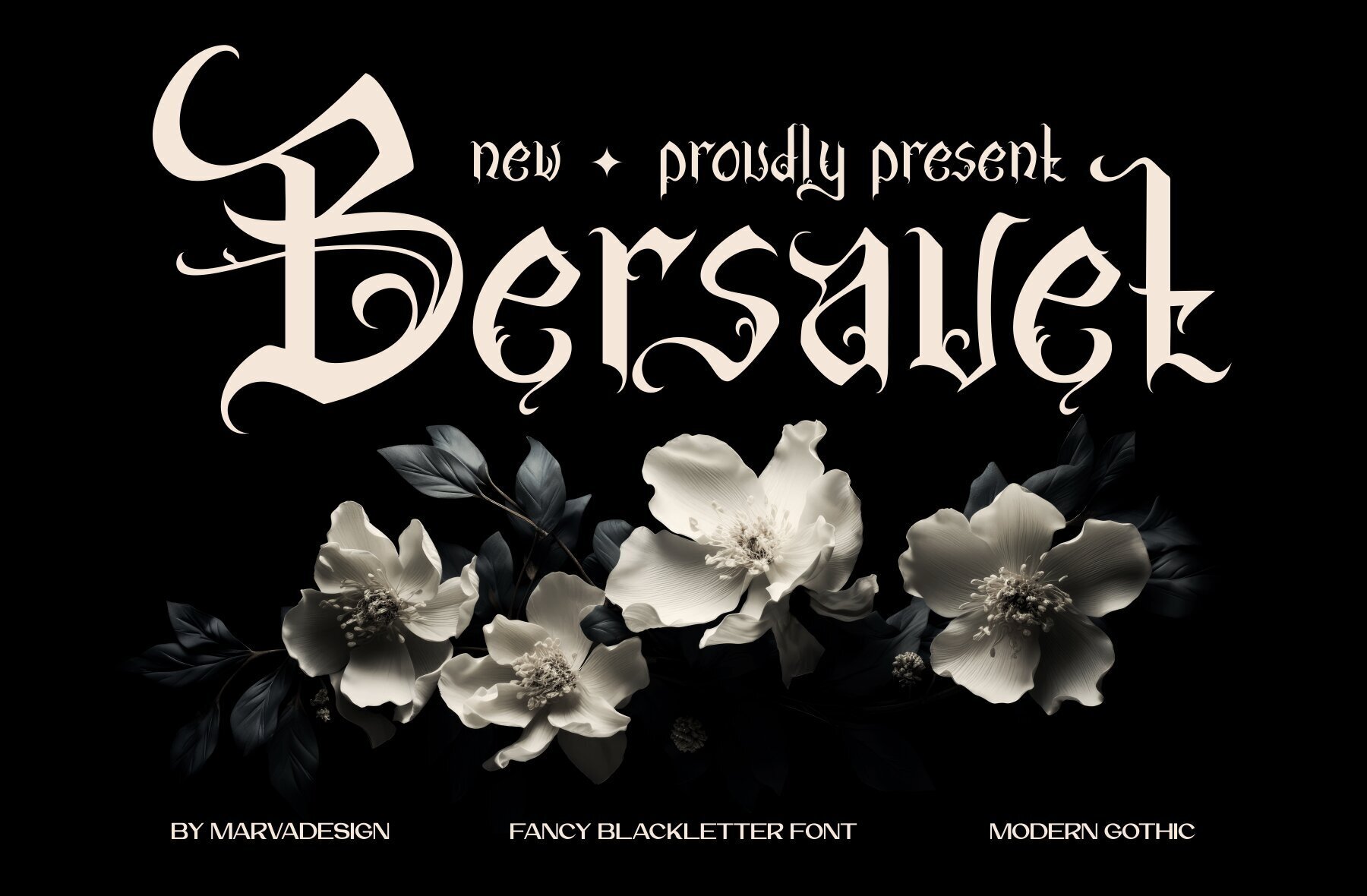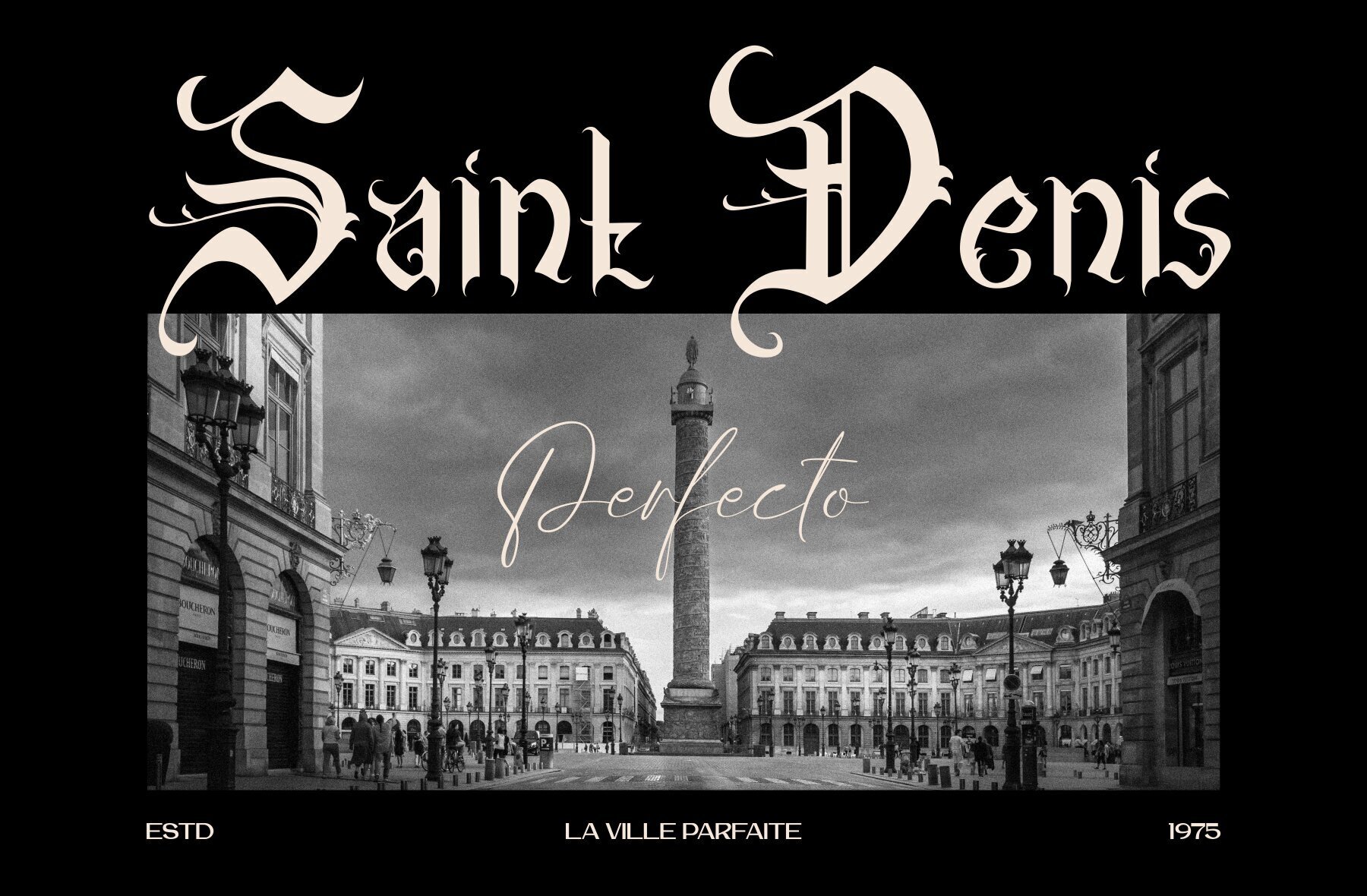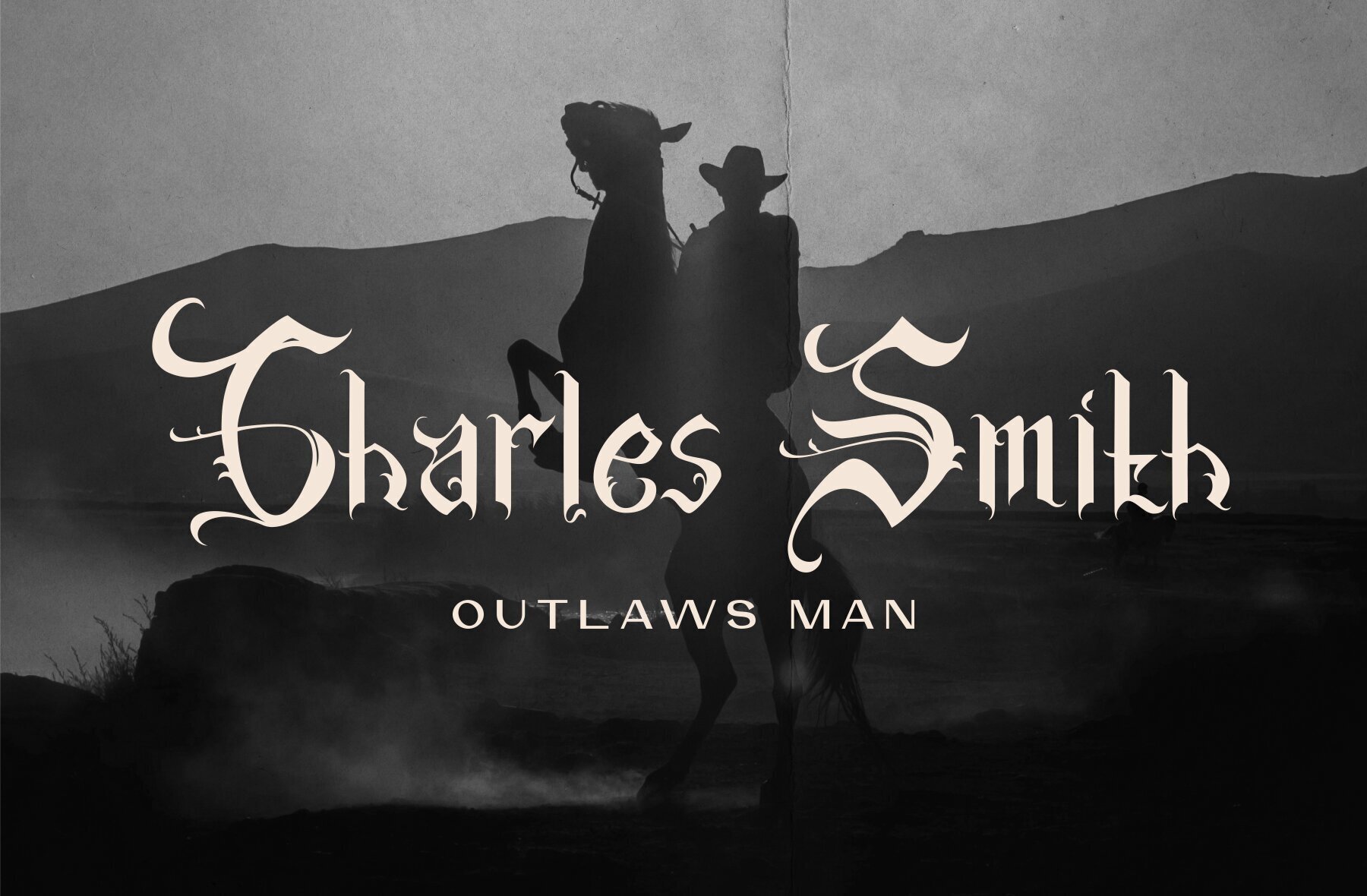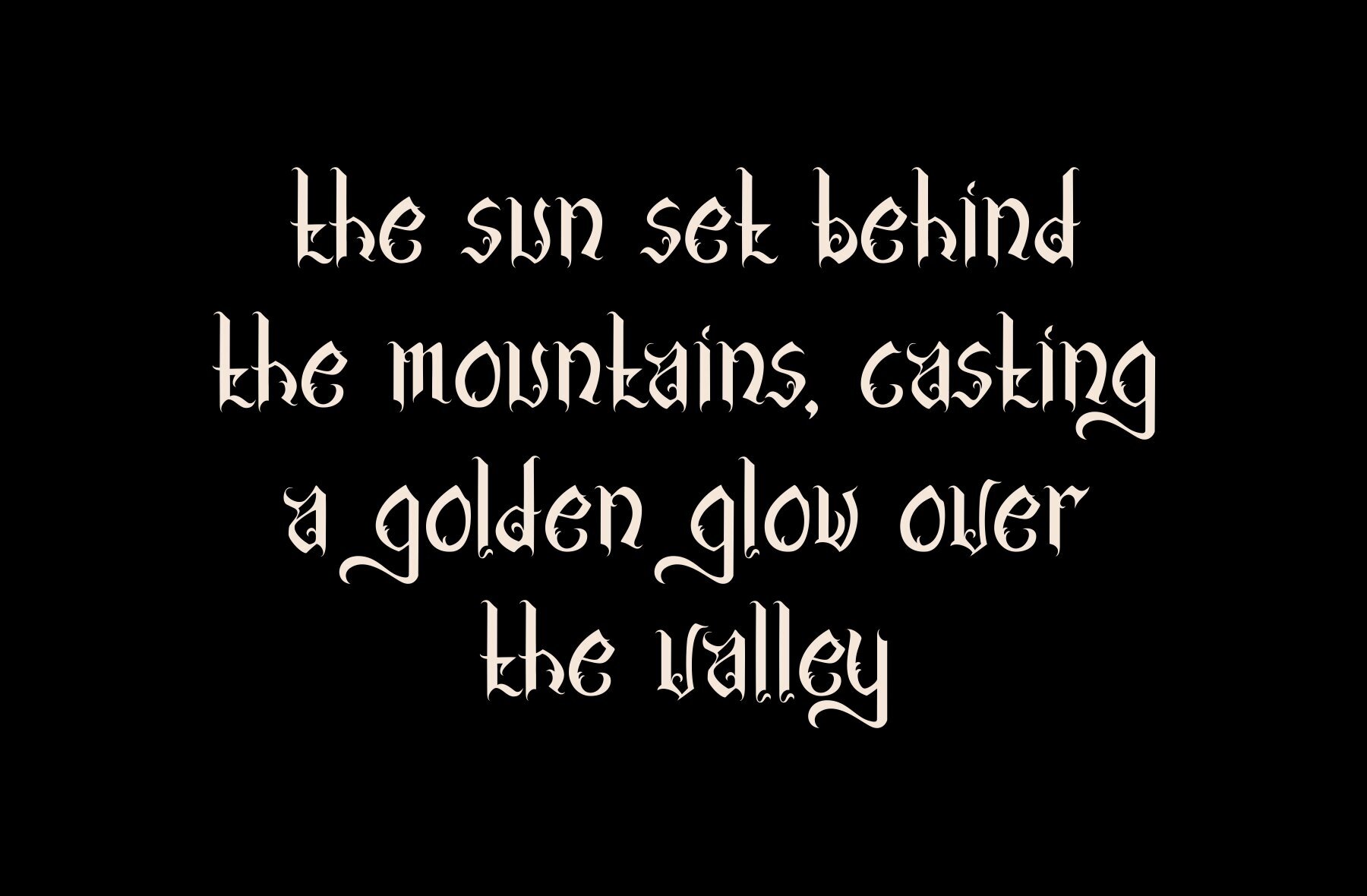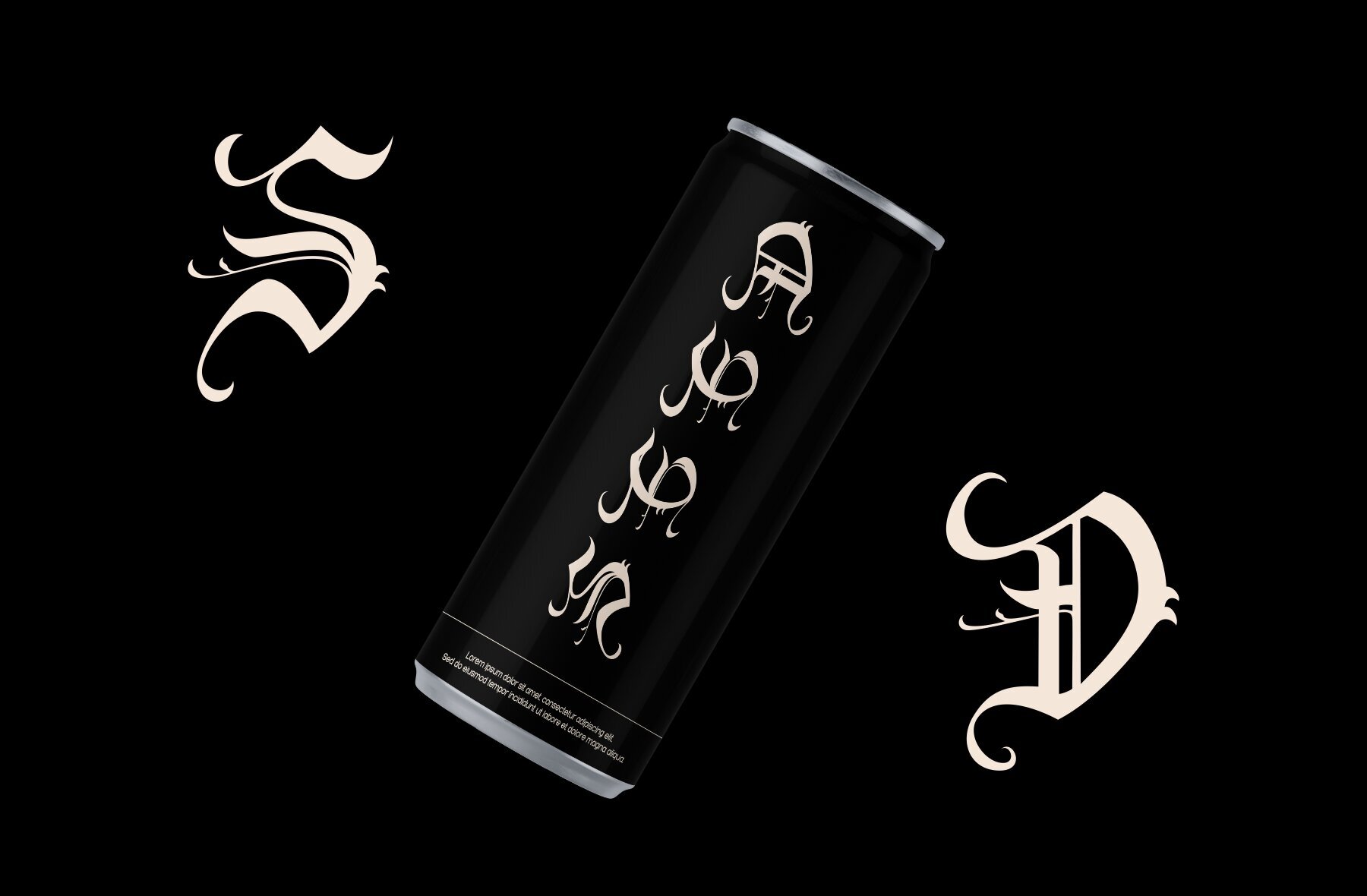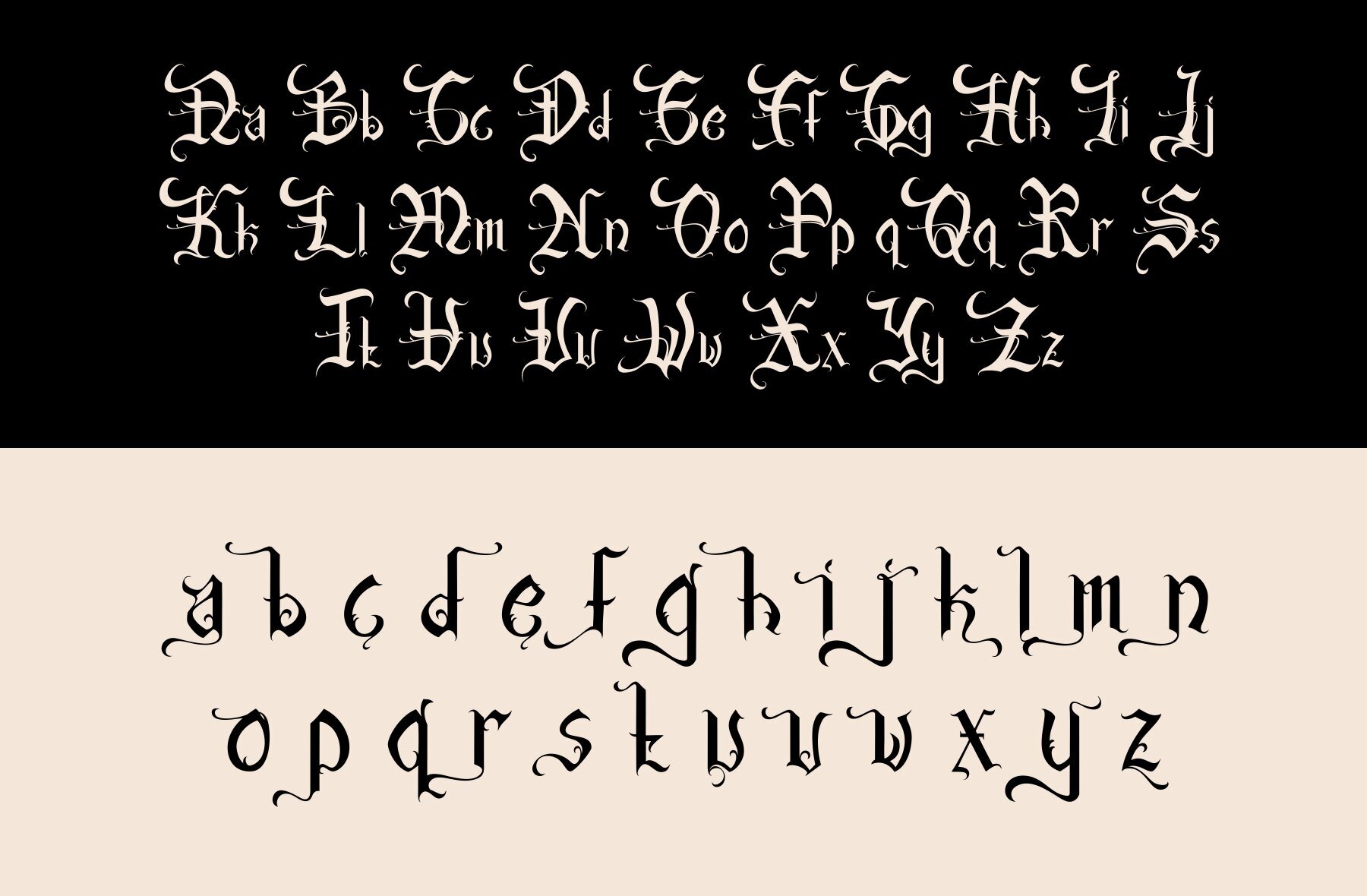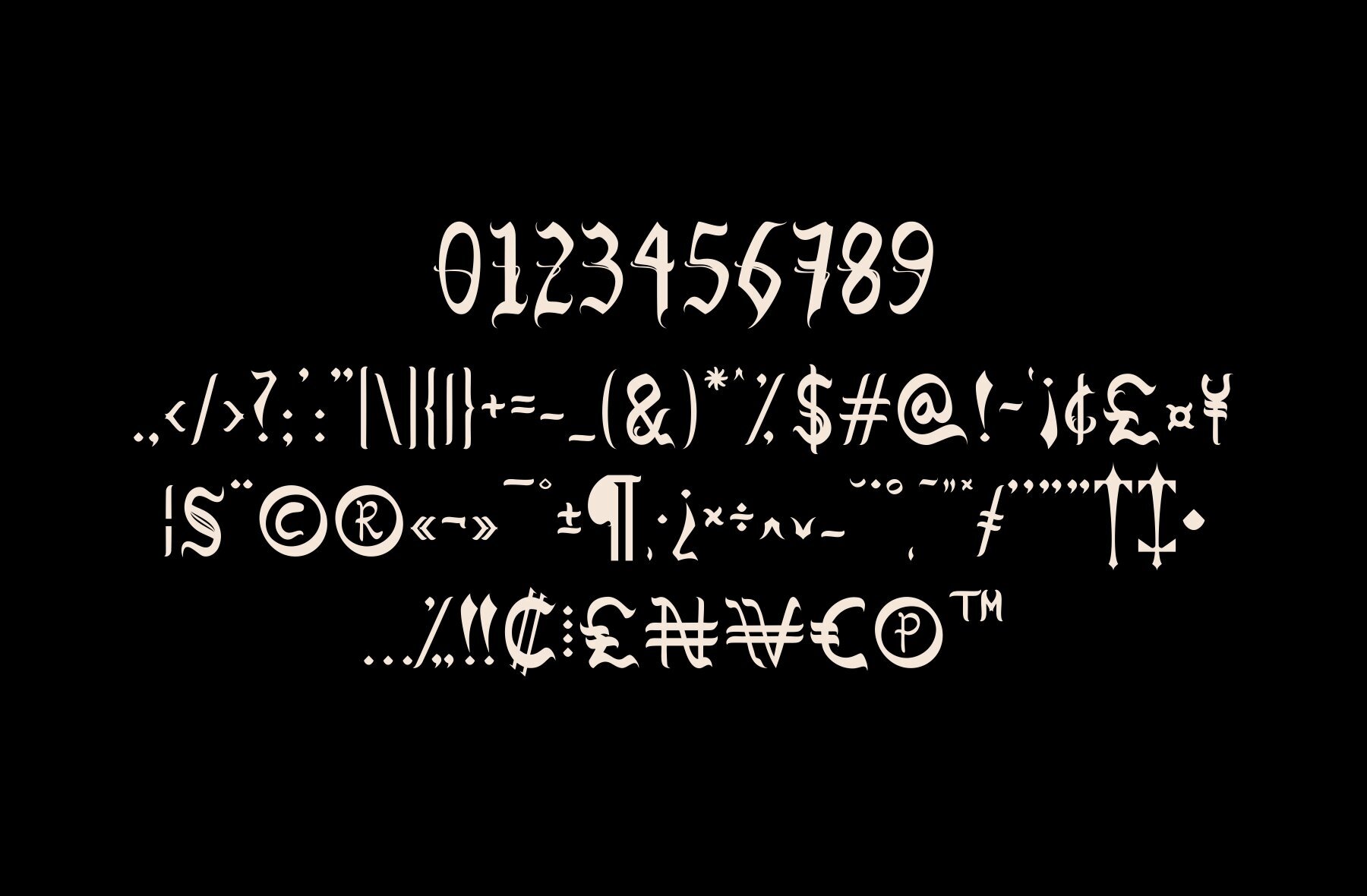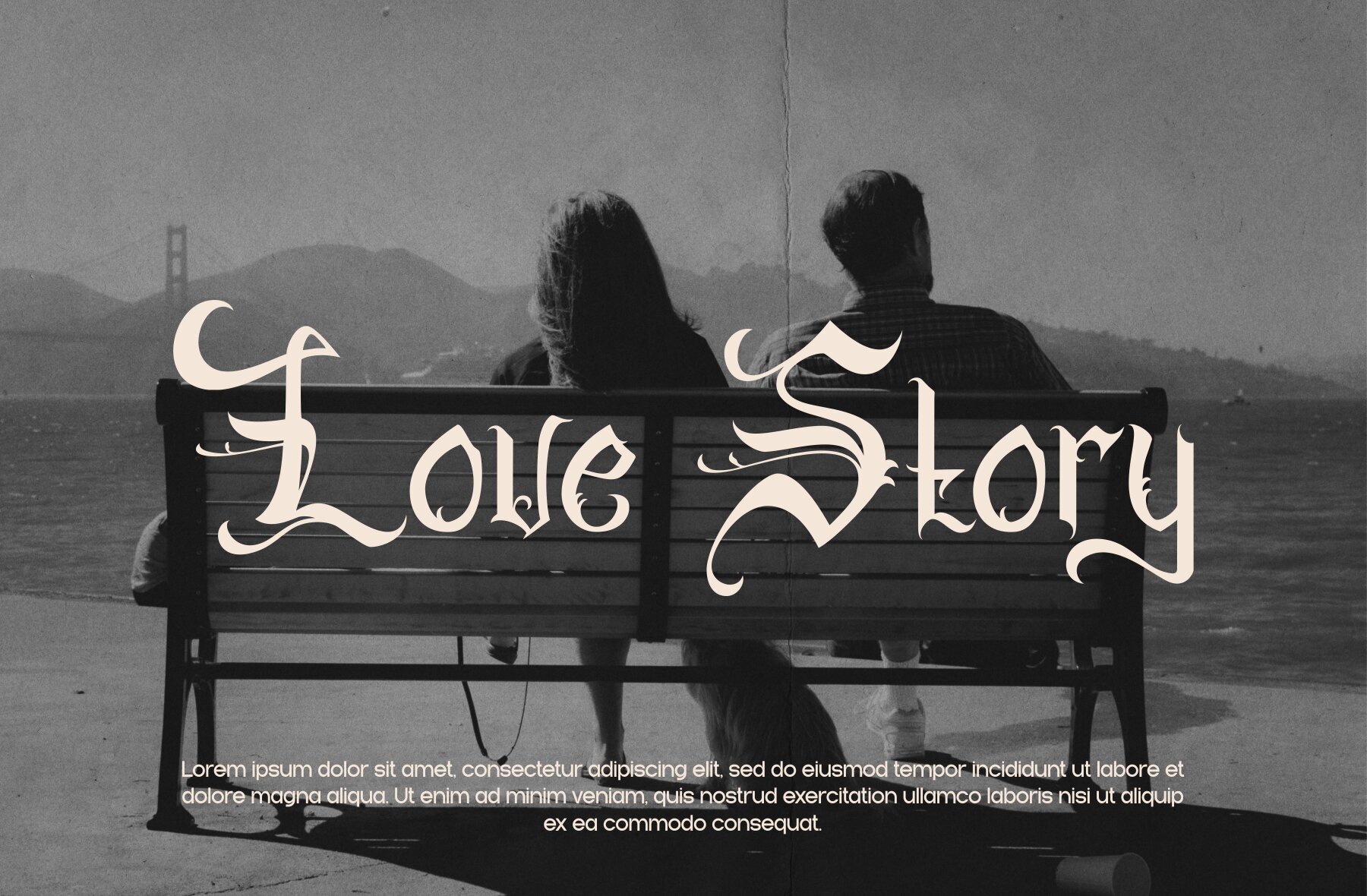
Bersavet Font
Bersavet Regular
Bersavet is a stylish blackletter typeface, blending traditional elements with a decorative flair. The font’s distinctive design makes it ideal for tattoo designs, branding, and various artistic applications. Bersavet stands out with its bold strokes and ornate details, giving any project an edgy and impactful look.
This typeface is highly versatile, featuring alternative characters in the lowercase set. This addition allows users to experiment and infuse their designs with creative freedom. Bersavet's unique and expressive personality ensures that your work will capture attention and make a statement. Whether you're working on a branding project or artistic venture, Bersavet provides the strong and artistic presence you need.